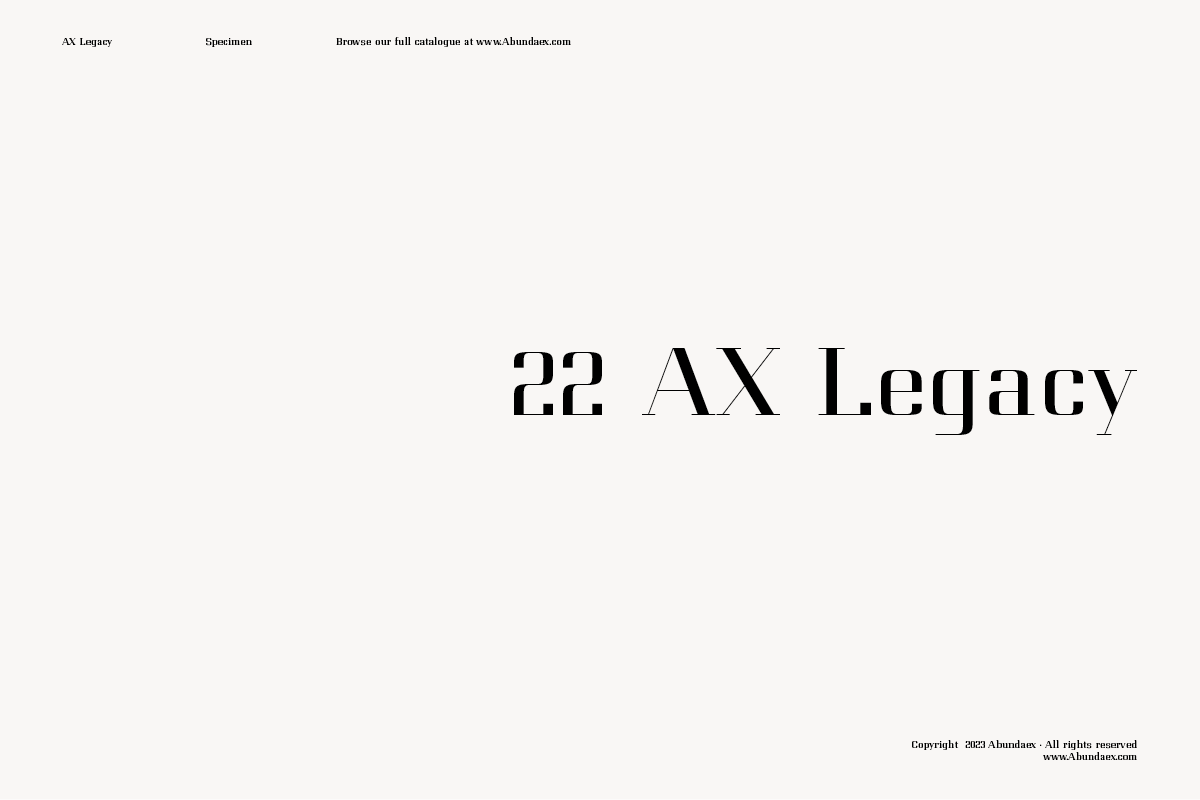
Legacy Stylish Font Free Download is a sophisticated and versatile typeface that blends modern elegance with timeless design. With its sleek lines, balanced curves, and stylish flair, Legacy is perfect for high-end branding, editorial layouts, logo design, wedding stationery, and minimalist packaging.
Crafted to stand out while maintaining readability, Legacy delivers a refined look that works beautifully in both headlines and body text. Whether you're creating for fashion, beauty, or luxury lifestyle brands, this font brings a premium feel to every design.